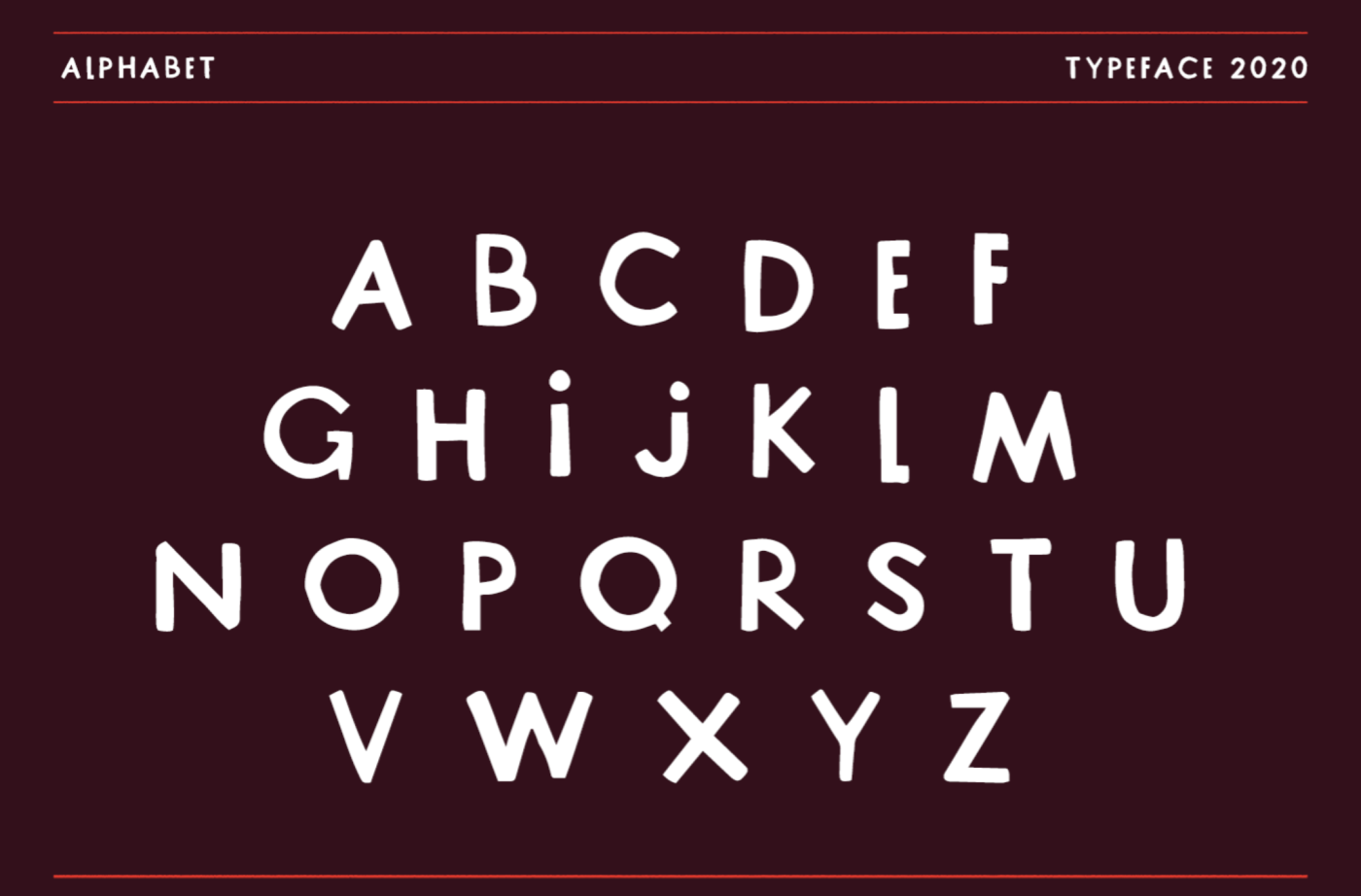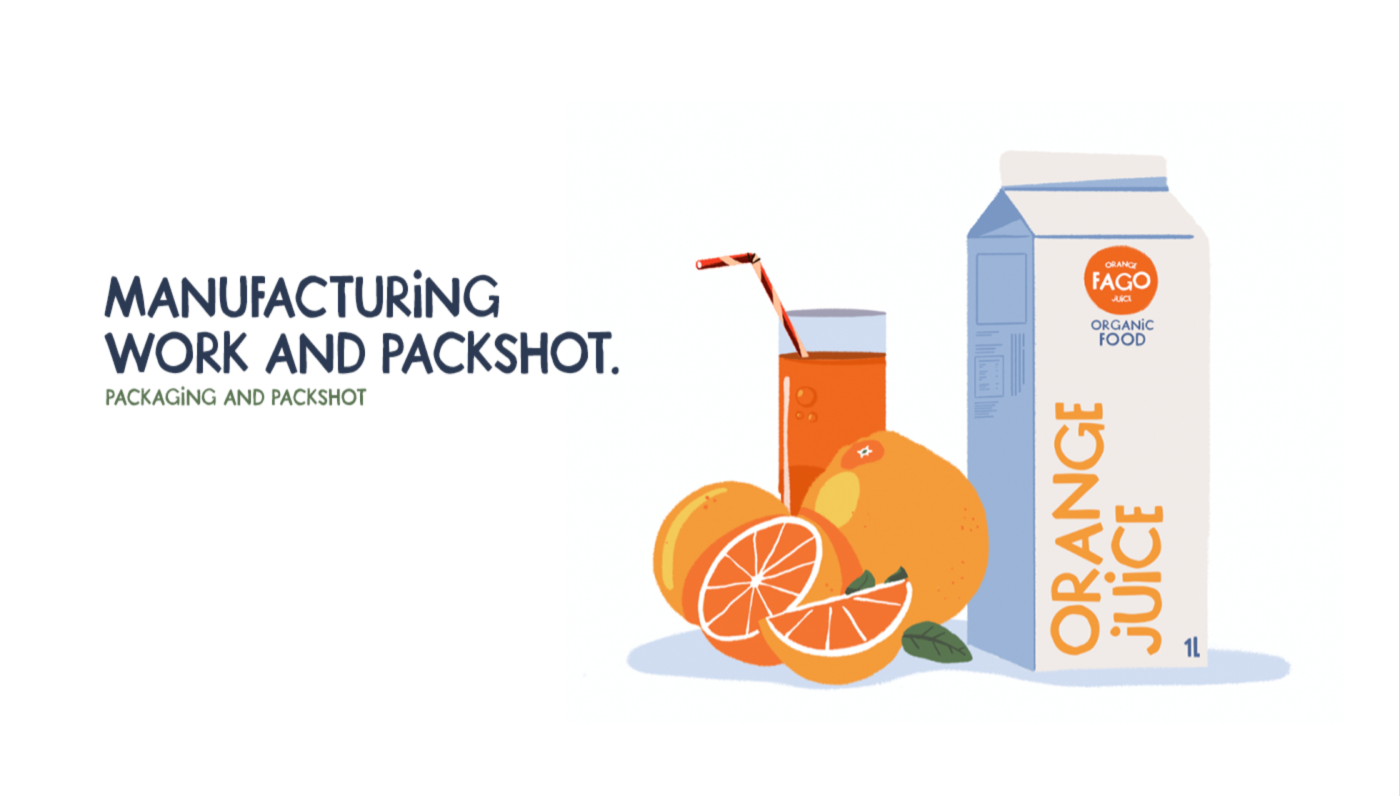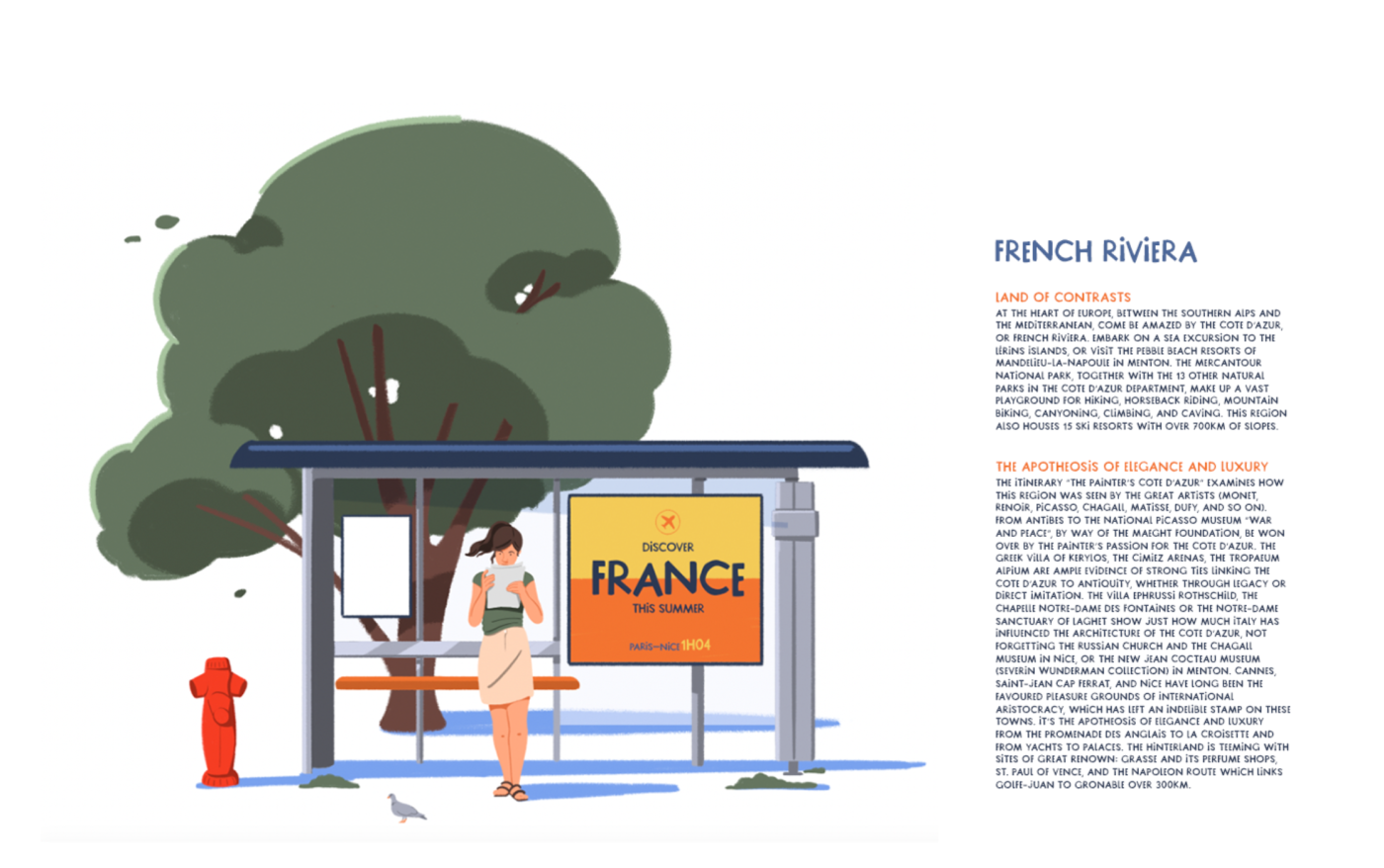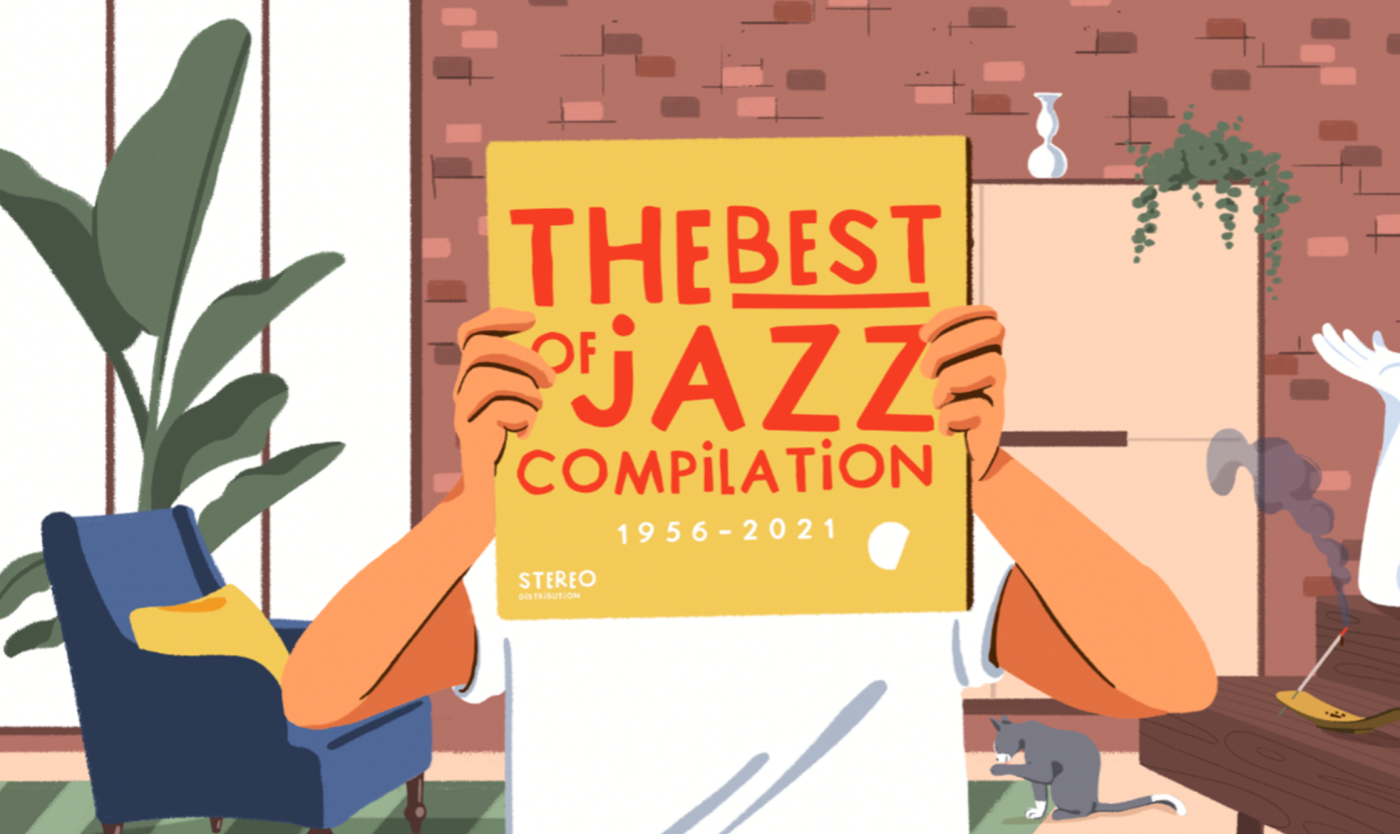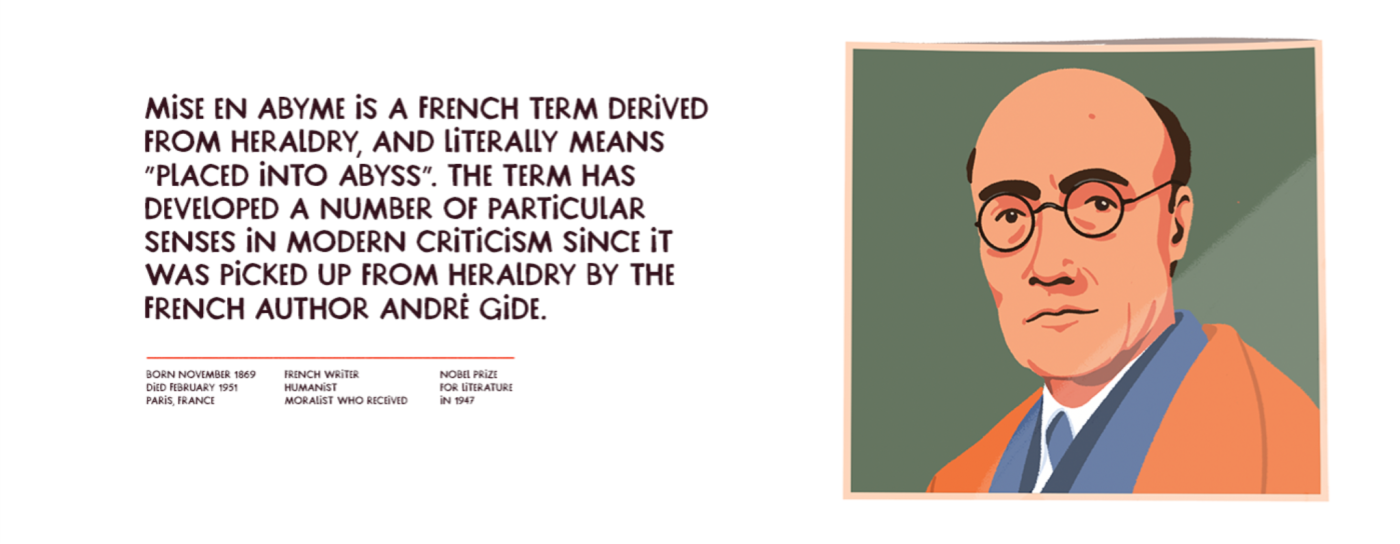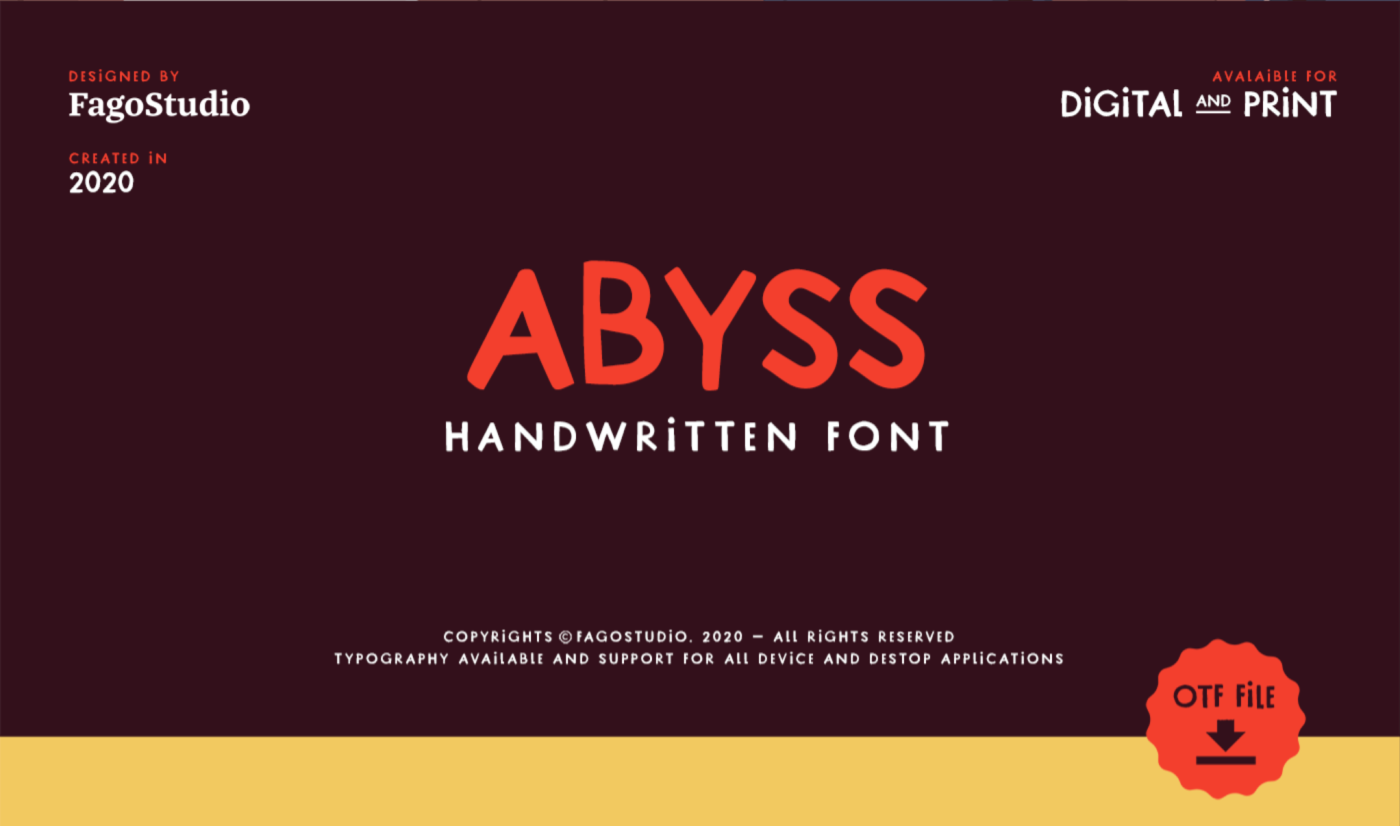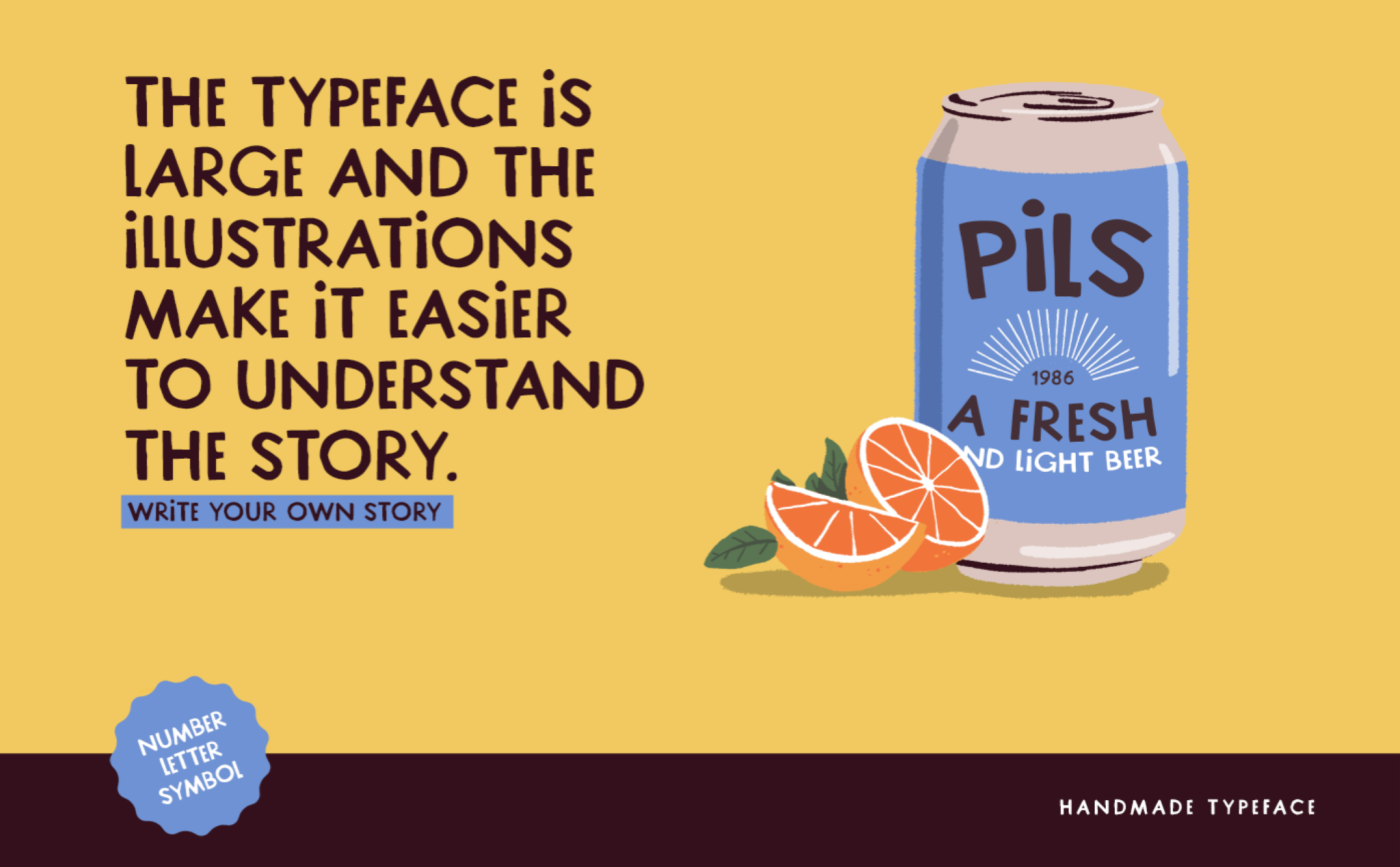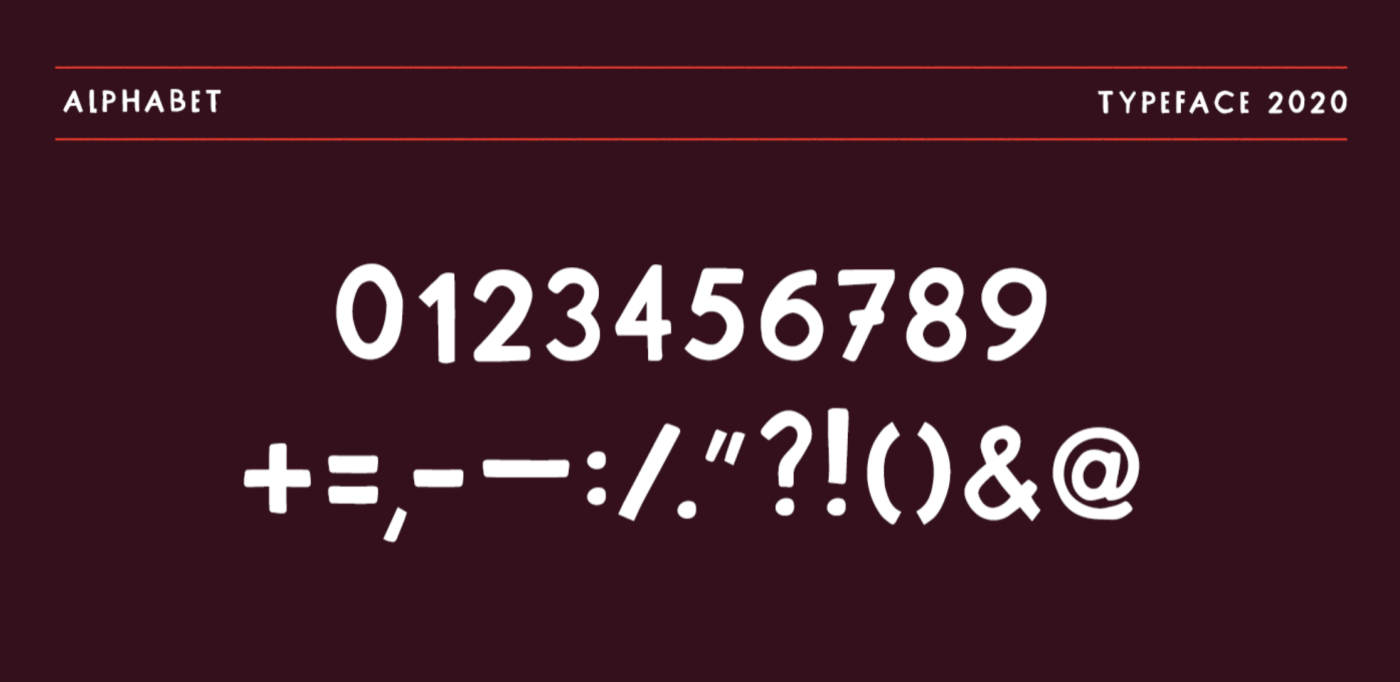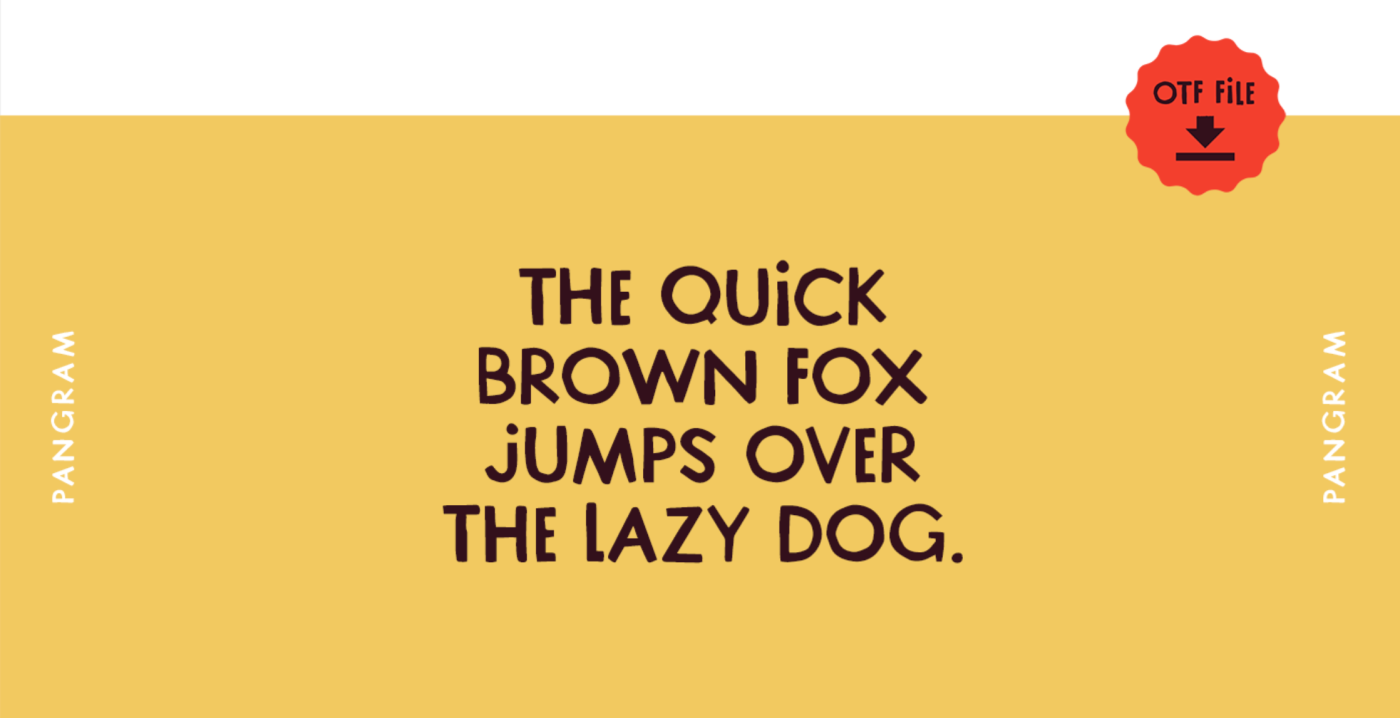
Abyss Typeface
Abyss typeface,
a handmade typography
created by fagostudio
Abyss typeface is a handwritten typeface designed and developed by Fagostudio. A playful typography useful for your compositions. It's for free and available for your prints and applications. Open type features include only caps, numbers, arrow and extra punctuation. Below are some examples of compositions for this typography. It can be used in title but also in paragraph text.